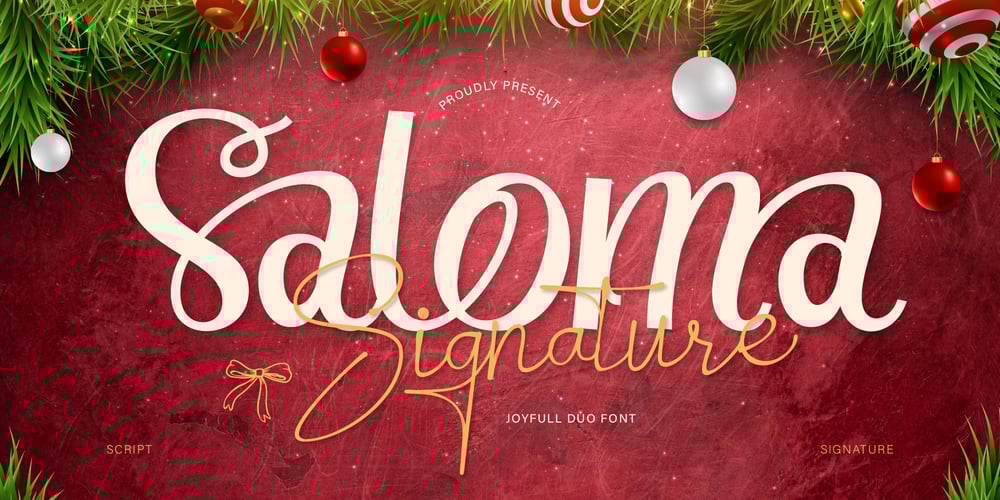
Saloma Font Family was designed by Eric Kurniawan and published by Burntilldead. Saloma contains 2 styles and family package options. Say hello to Saloma Signature, our duo script font combines elegant script with a playful touch, making it the perfect choice for this holiday season. This flowing curves and delicate details create a beautiful and festive look. Also this duo font bring joy and warmth to your designs. Perfect for creating invitations, greeting cards, social media and so on. Saloma Signature includes alternates and ligatures, helping you to create truly unique design. Features: A – Z set (Uppercase & Lowercase) Number Punctuation Alternates Ligatures Multilingual